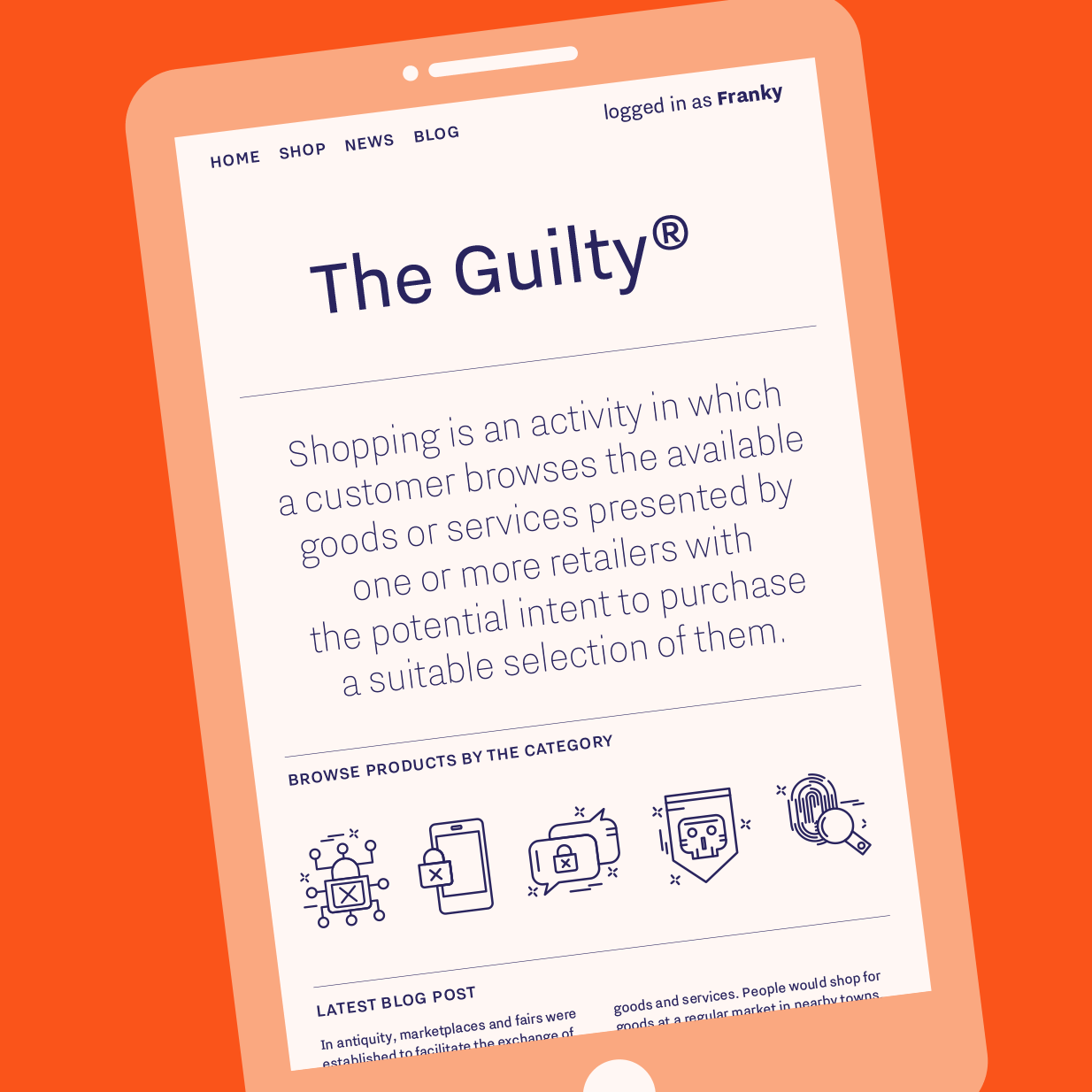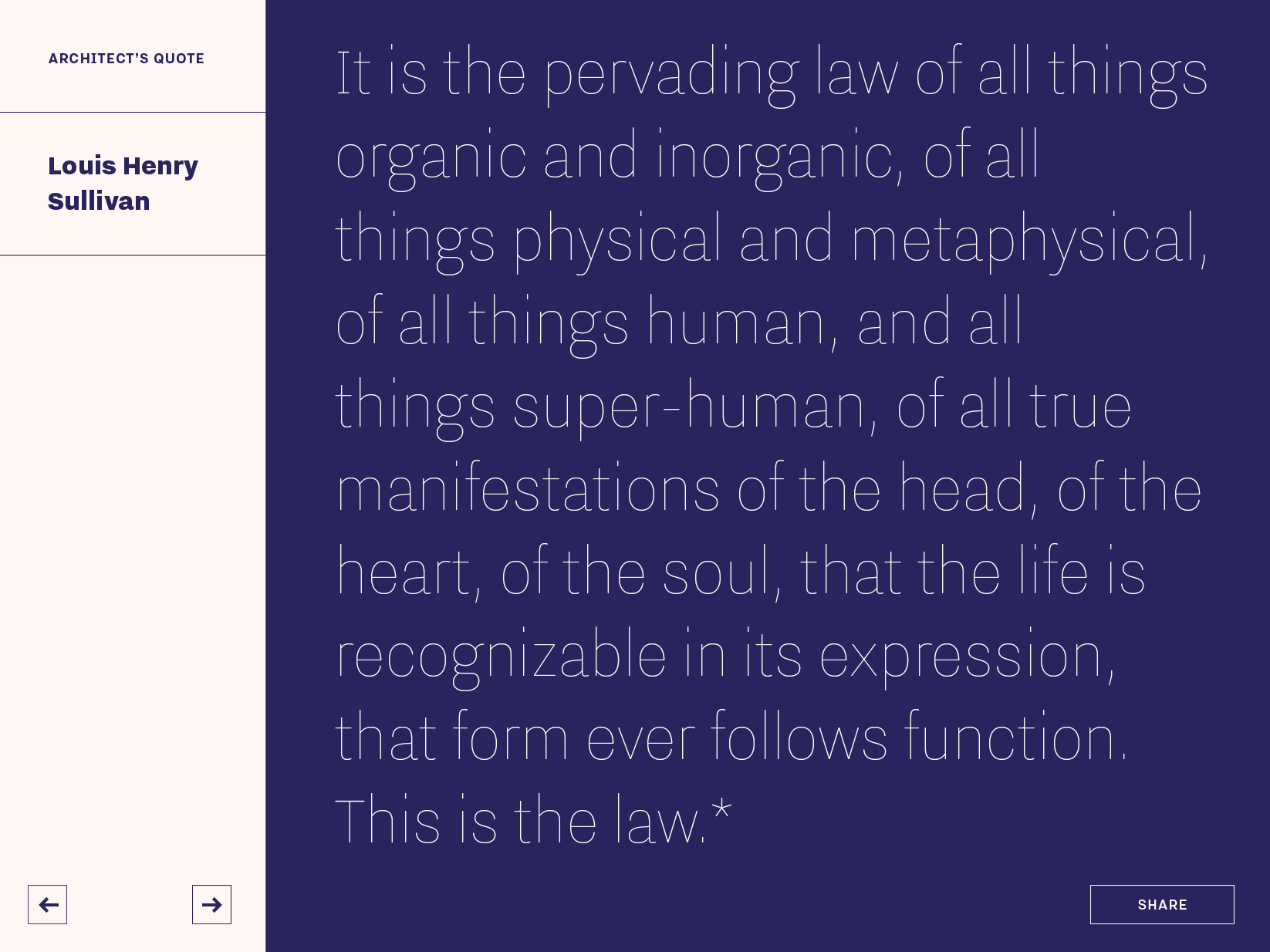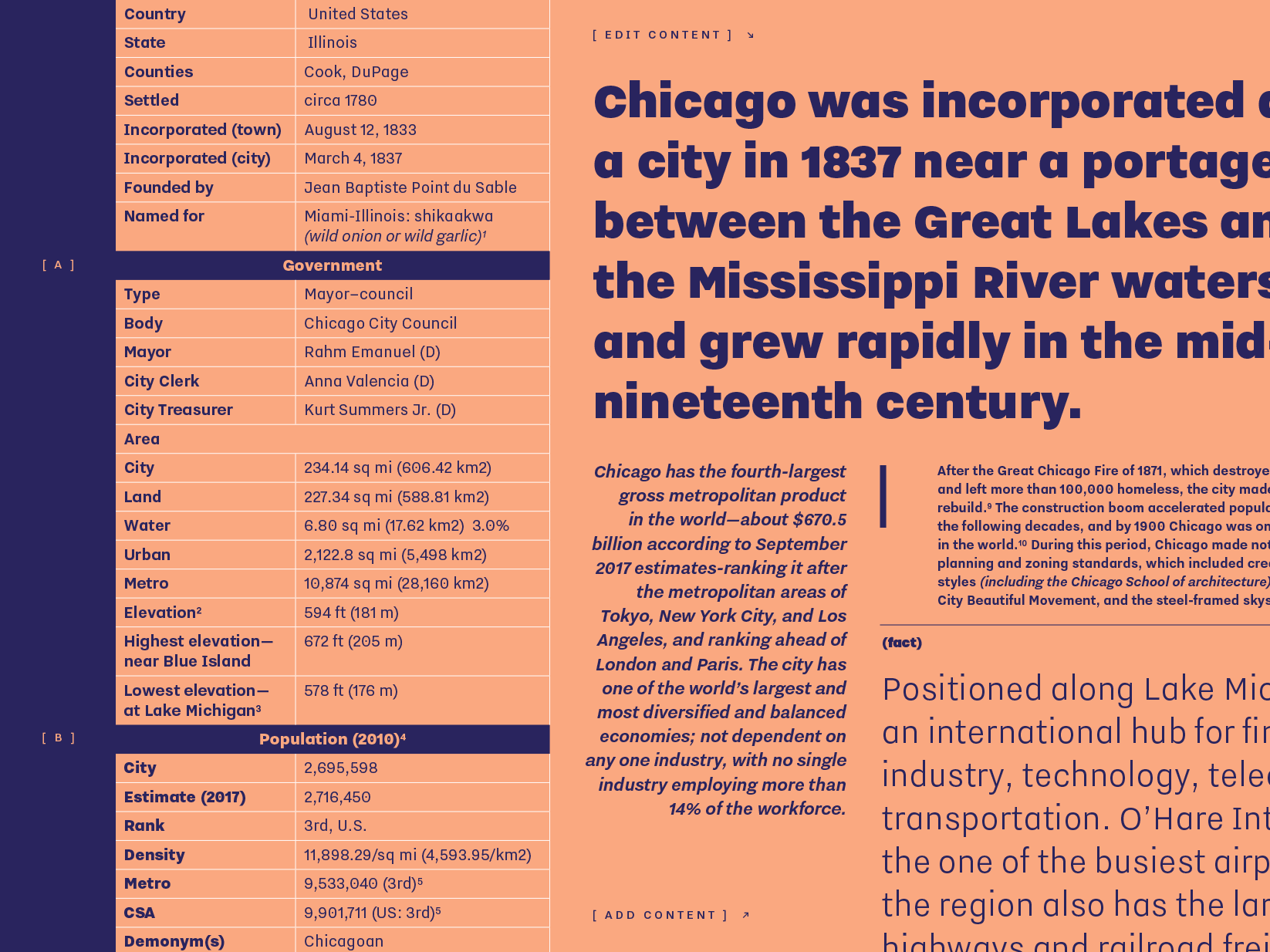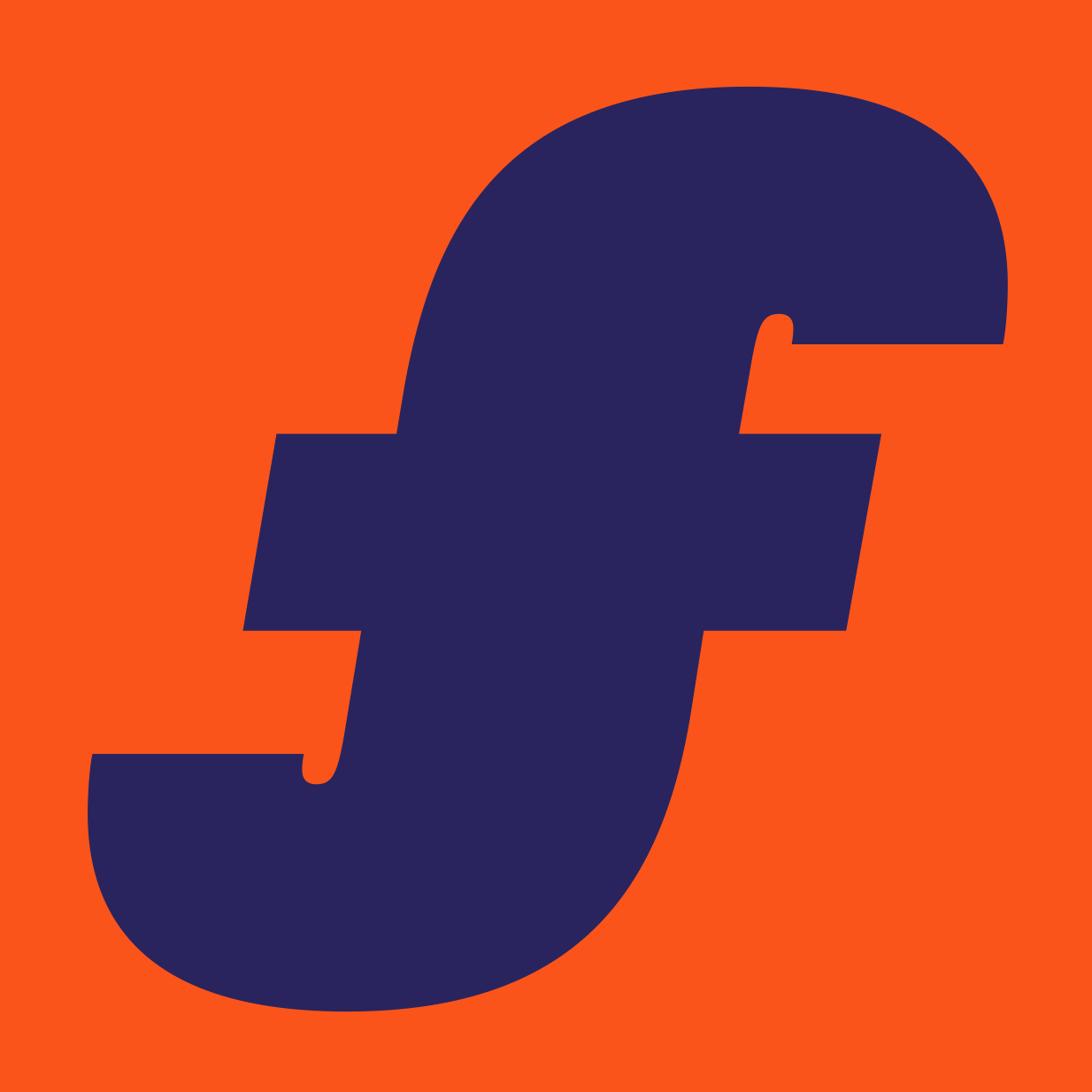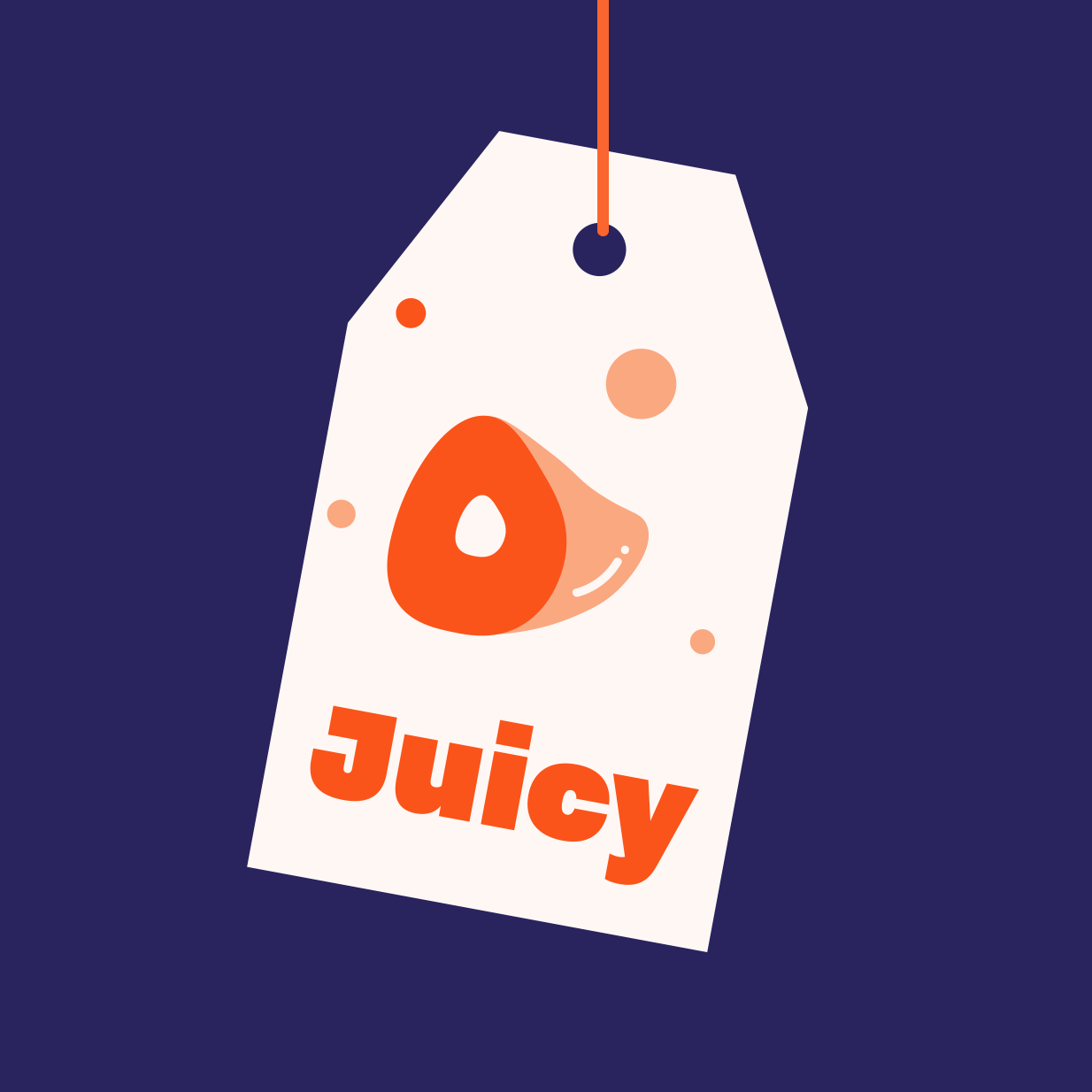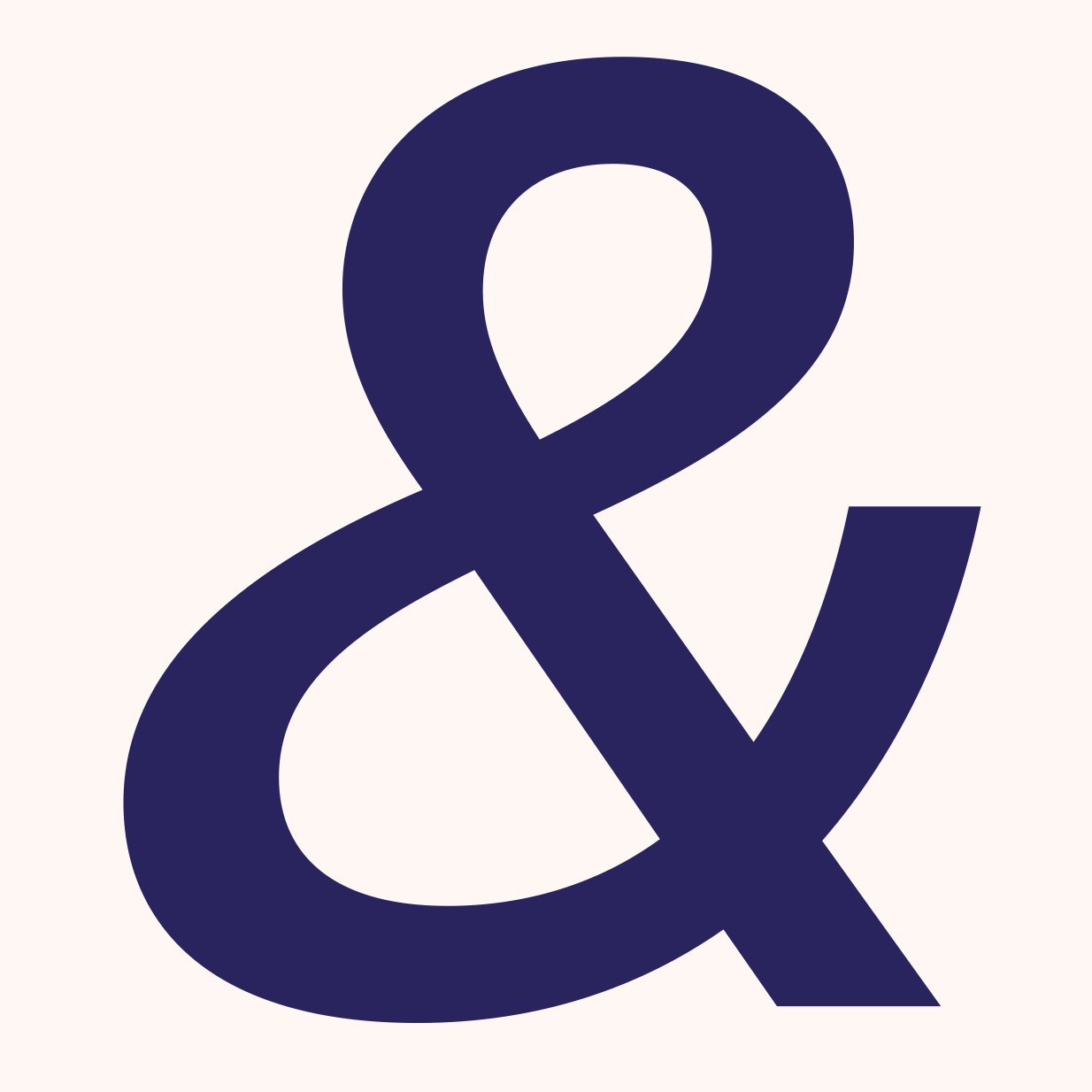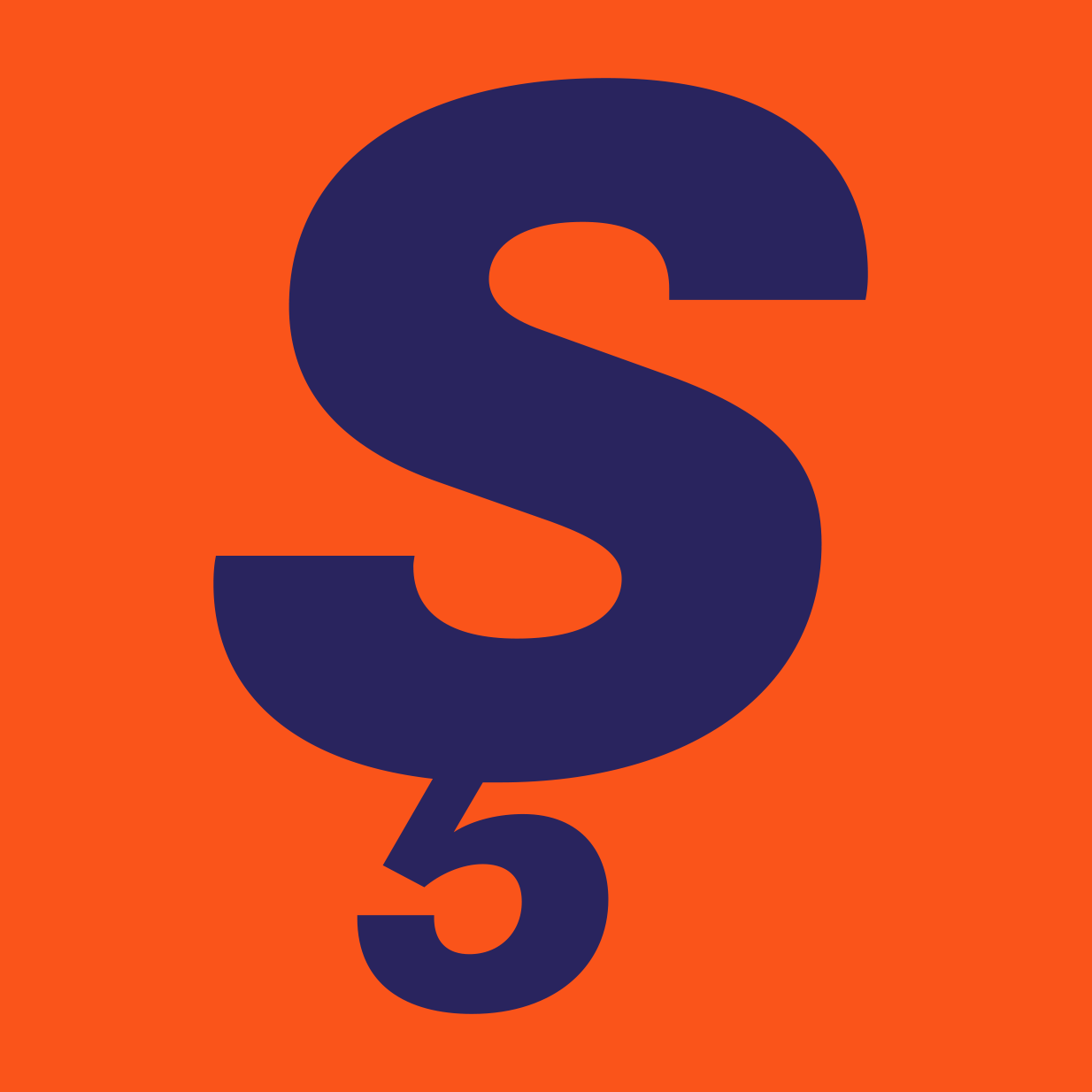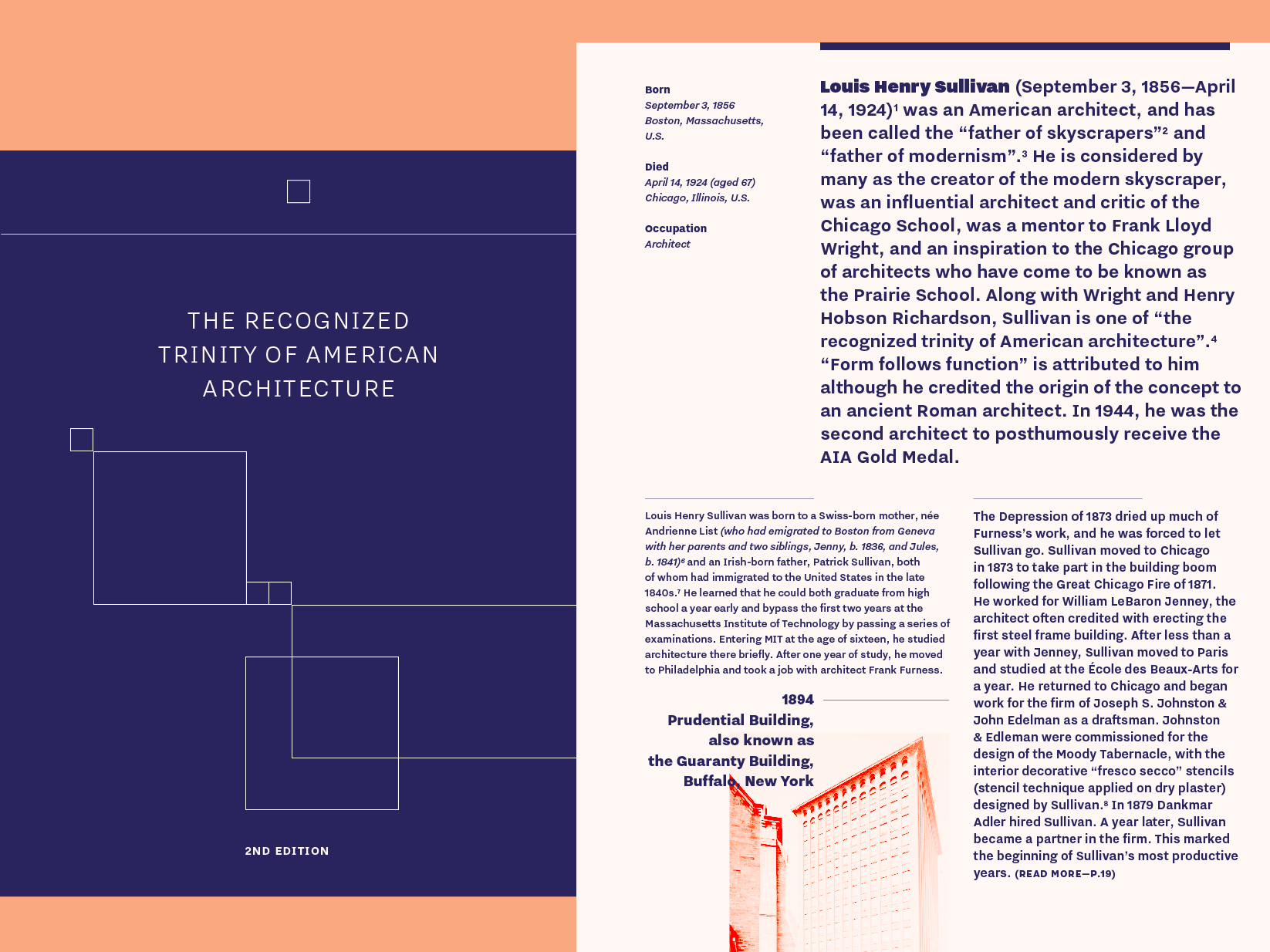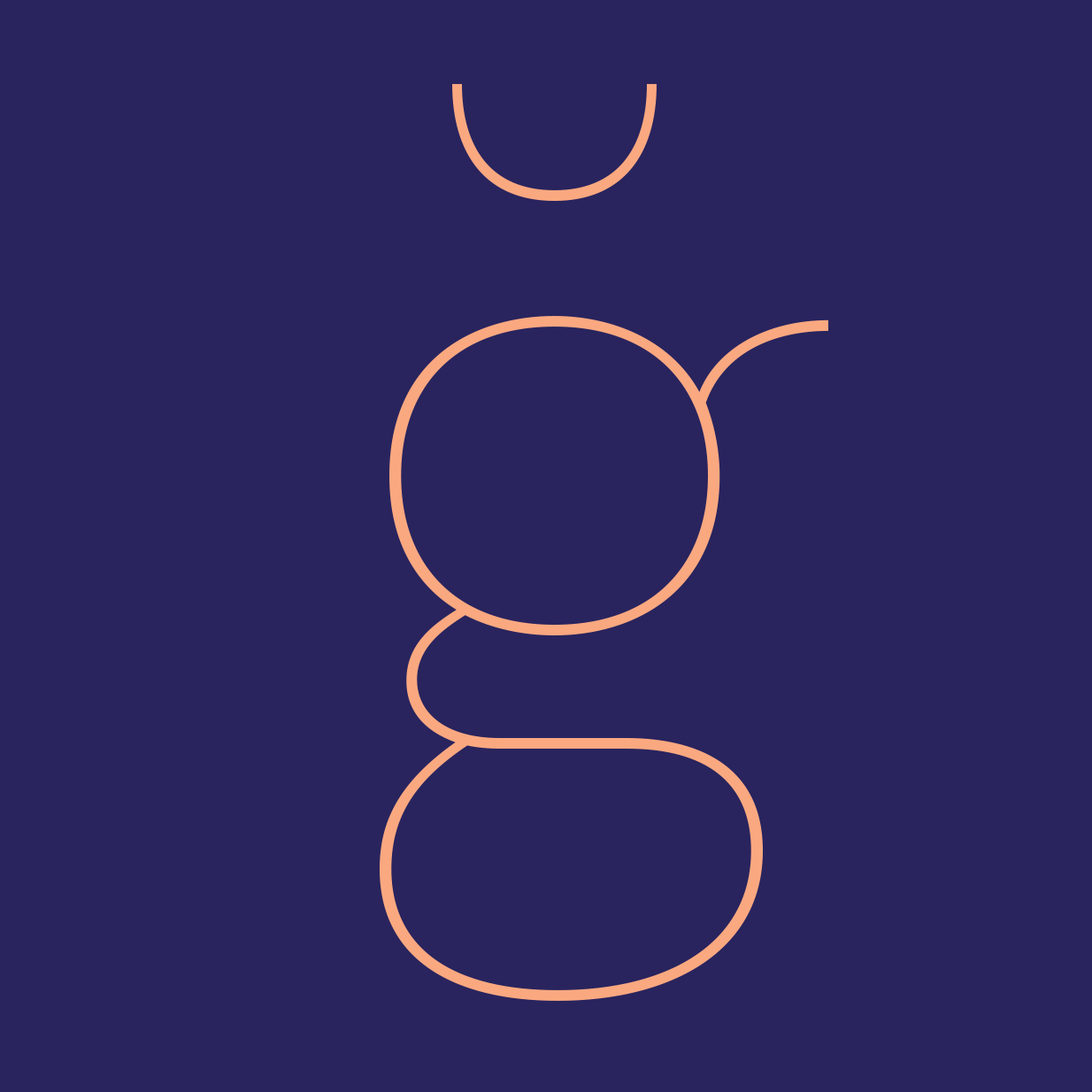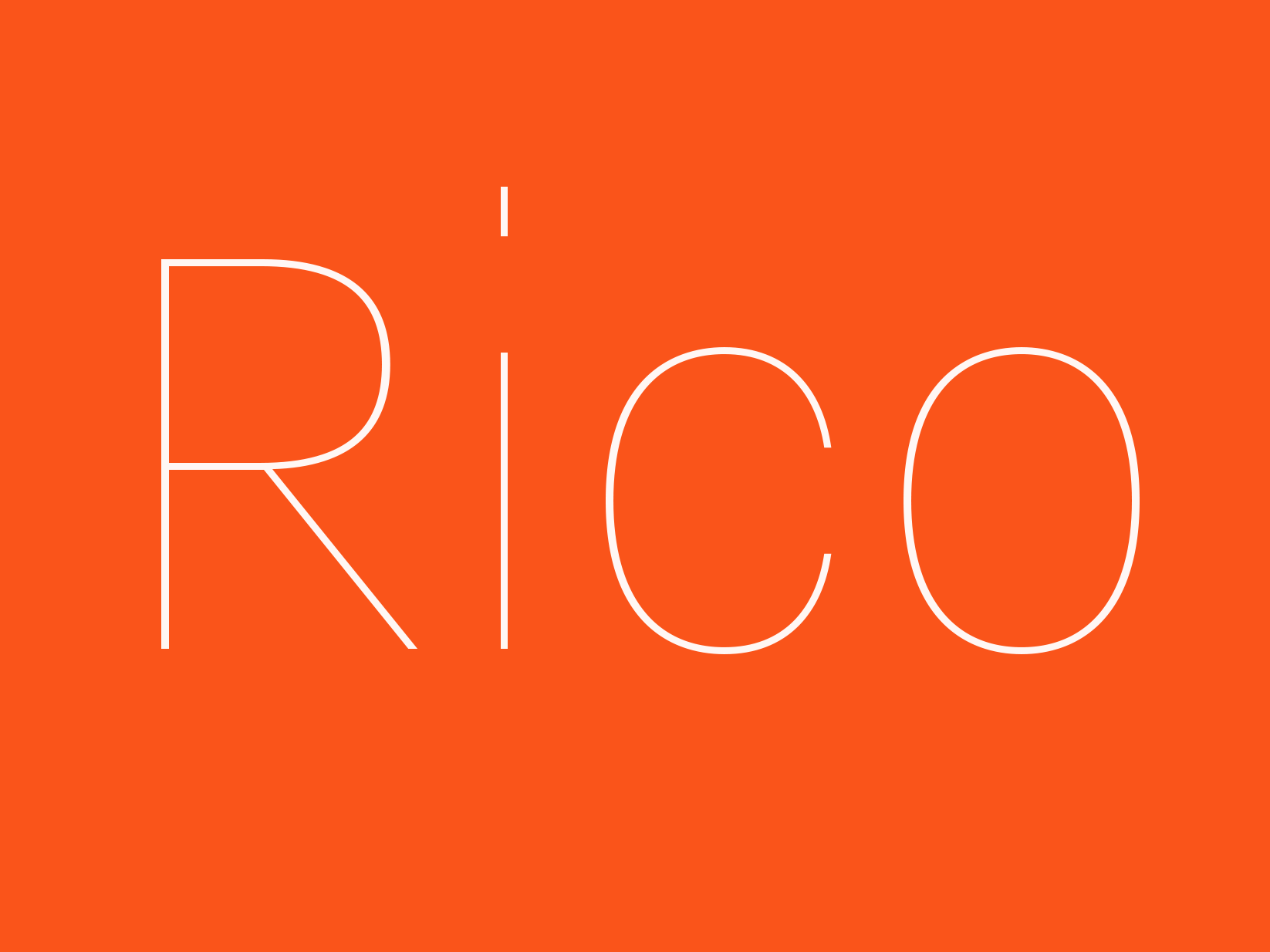
Nitti Grotesk
Nitti Grotesk is the proportional companion to Nitti and part of a larger collection of Grotesque-inspired typefaces by Pieter van Rosmalen. The series originates in his sans-serif called Capone, which evolved into the display family Stanley, and a monospaced version that became Nitti, named after Francesco Raffaele Nitto, one of Al Capone’s henchmen.
Shortly after Nitti gained worldwide recognition through its prominent use in iA Writer Pro, Information Architects inquired about a proportional version of Nitti. This proved to be trickier than thought. On third attempt, van Rosmalen found the right approach: making the new typeface more grotesque where Nitti deviates from the genre. The quirky and often idiosyncratic shapes of the early English sans-serifs are what lend them the humanity and warmth still appreciated among many graphic designers today. Van Rosmalen incorporated the peculiarities into a versatile, contemporary family of seven text weights plus italics, five display weights and extended Latin character-set.
Next to Nitti Grotesk there is Nitti Grotesk Condensed, the space-saving sibling for punchy headlines and striking display typography.